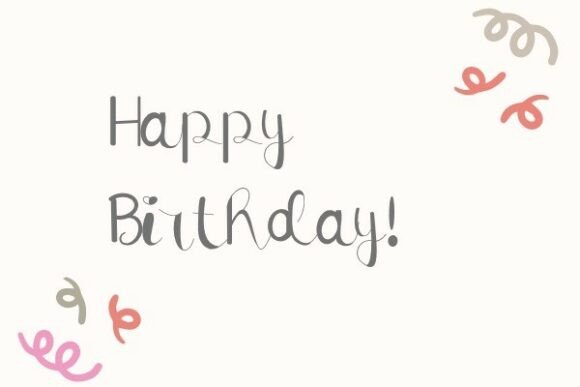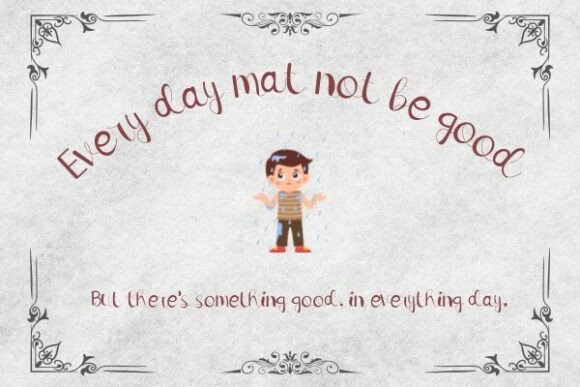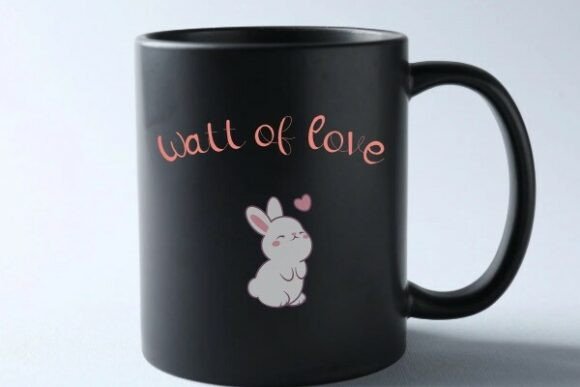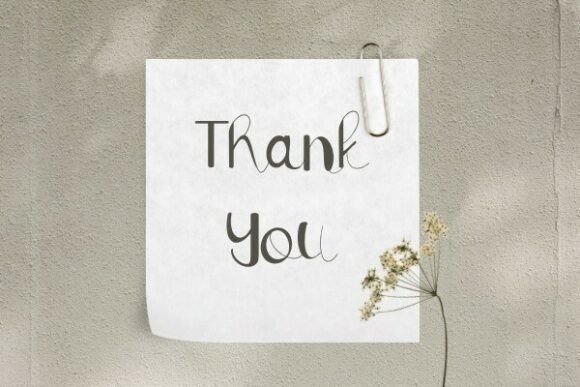
The Perfect Toast to Design
Have you ever stared at a blank page, trying to come up with the perfect design to express your creativity? The moment of inspiration strikes, and you envision a beautiful, elegant, and unique piece of art that captures the essence of your vision. For designers, finding the right font can be the key to unlocking that perfect creation. That’s where the Champagne Font comes in – a handwritten masterpiece that adds a touch of sophistication and style to any design.
This versatile font is more than just a pretty face; it’s a valuable tool for designers looking to elevate their creations. Whether you’re designing wedding invitations, t-shirts, or greeting cards, the Champagne Font is the perfect choice to bring your vision to life.
Champagne Font Key Features
• Font Family: Champagne Font is a script font family designed to resemble cursive handwriting.
• Unique Characteristics: Features a flowing, elegant script style with swashes and flourishes, giving it a luxurious and sophisticated look.
Champagne Font Review
As a designer, I was excited to try out the Champagne Font for a recent project. Overall, I have mixed feelings about this font.
• Champagne Font has a unique and elegant feel to it, making it perfect for luxury branding and high-end designs.
• The font’s script and cursive elements are well-designed and add a touch of sophistication to any project.
• The font is highly customizable, allowing designers to adjust the weight, style, and spacing to fit their specific needs.
• The font may be a bit too ornate for some designs, which can make it difficult to read in certain contexts.
• The font’s script elements can be a bit inconsistent in certain characters, which can affect the overall flow of the text.
• The font may not be the best choice for body text, as it can be a bit too decorative and overwhelming.
While Champagne Font has its limitations, I believe it can be a great addition to a designer’s toolkit. Its unique feel and high level of customizability make it perfect for specific projects, but it may not be the best choice for every design. Overall, I would give Champagne Font 3.5 out of 5 stars.
Tips for Getting the Most Out of Champagne Font
Champagne Font is a decorative font that works well for adding a touch of elegance to your designs. To get the most out of it, try using it sparingly and in combination with other fonts to create a visually appealing contrast.
Champagne Font is commonly used for:
• Wedding invitations and stationery
• Special occasion announcements (e.g. birthdays, graduations